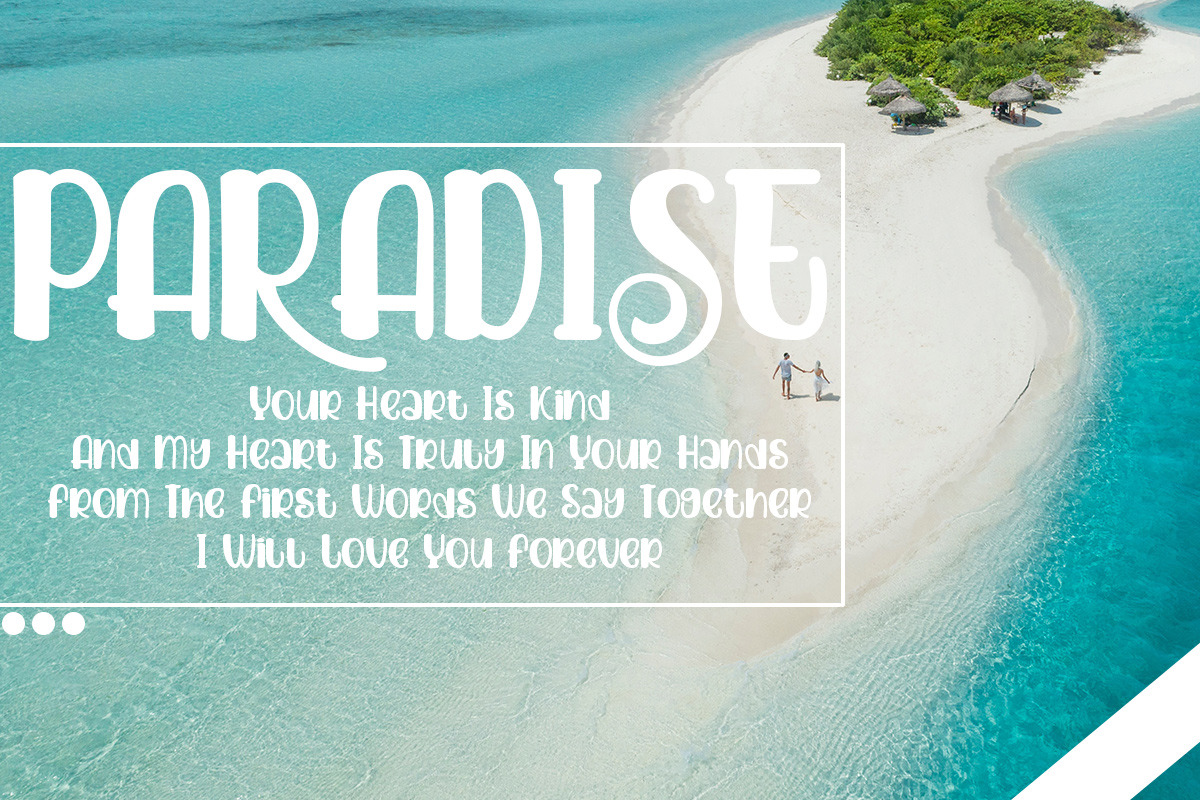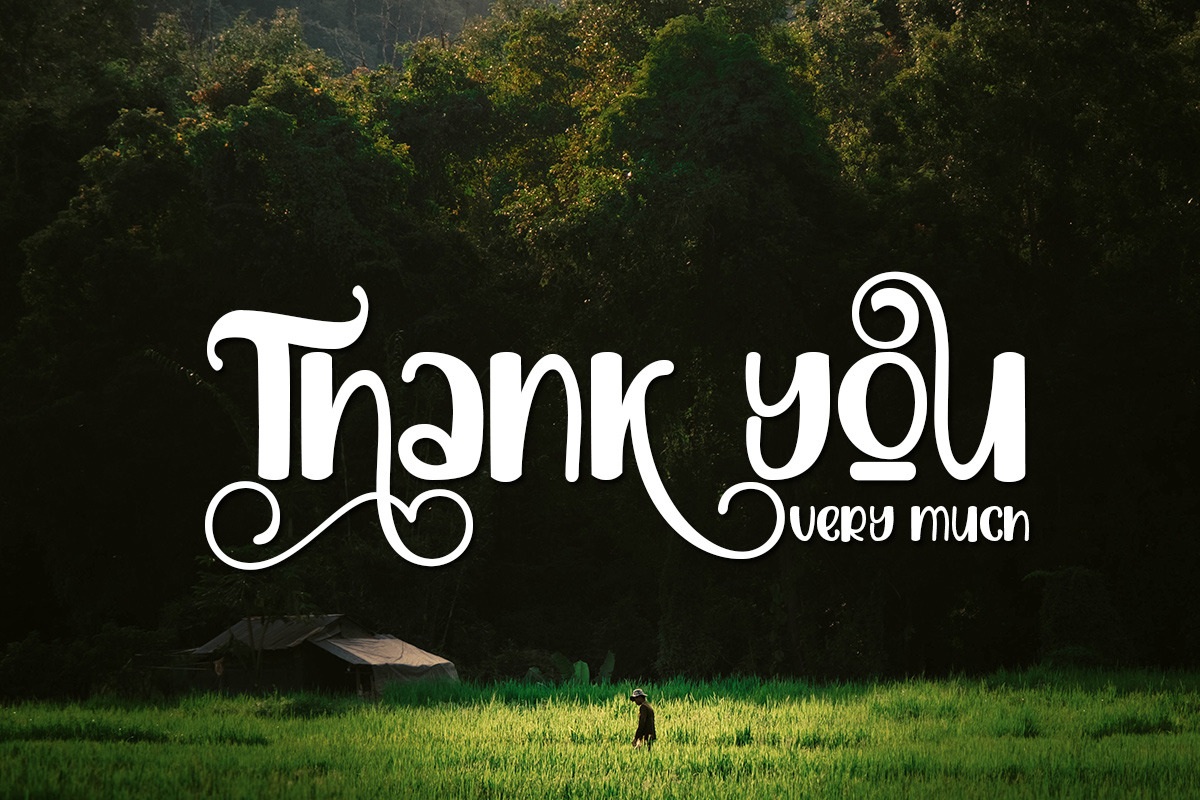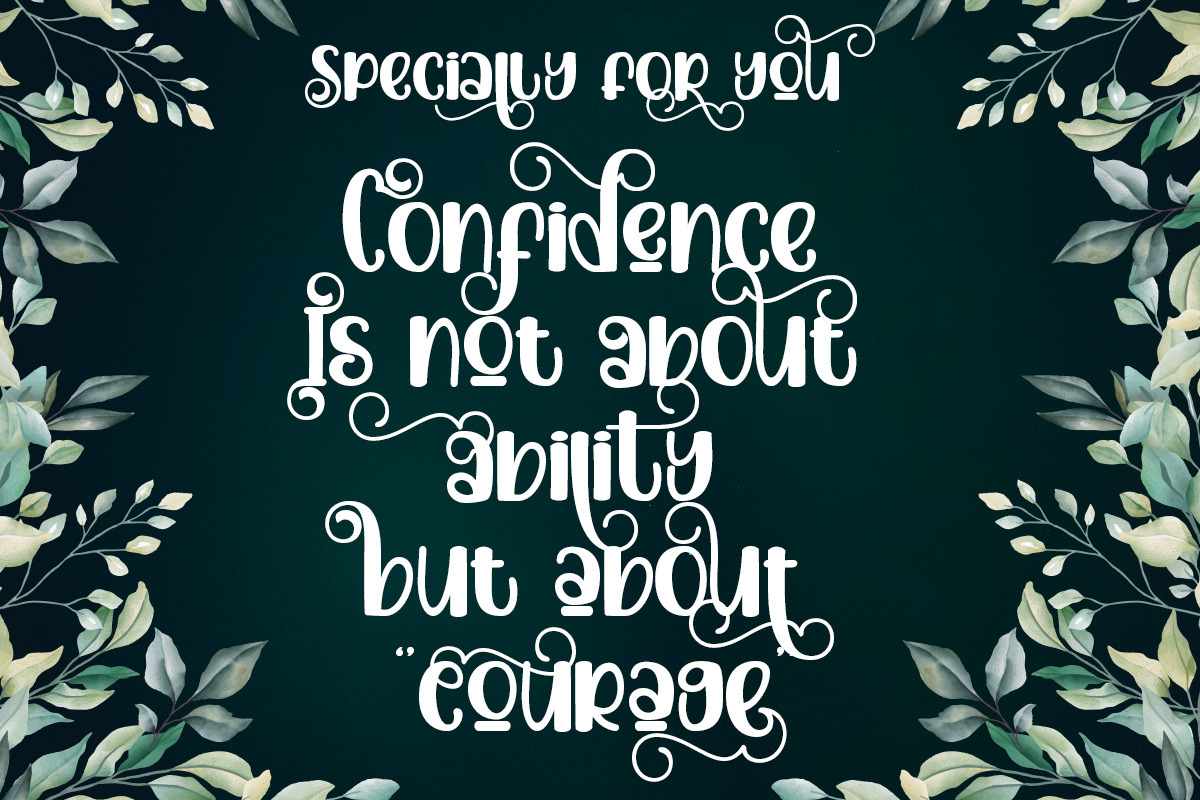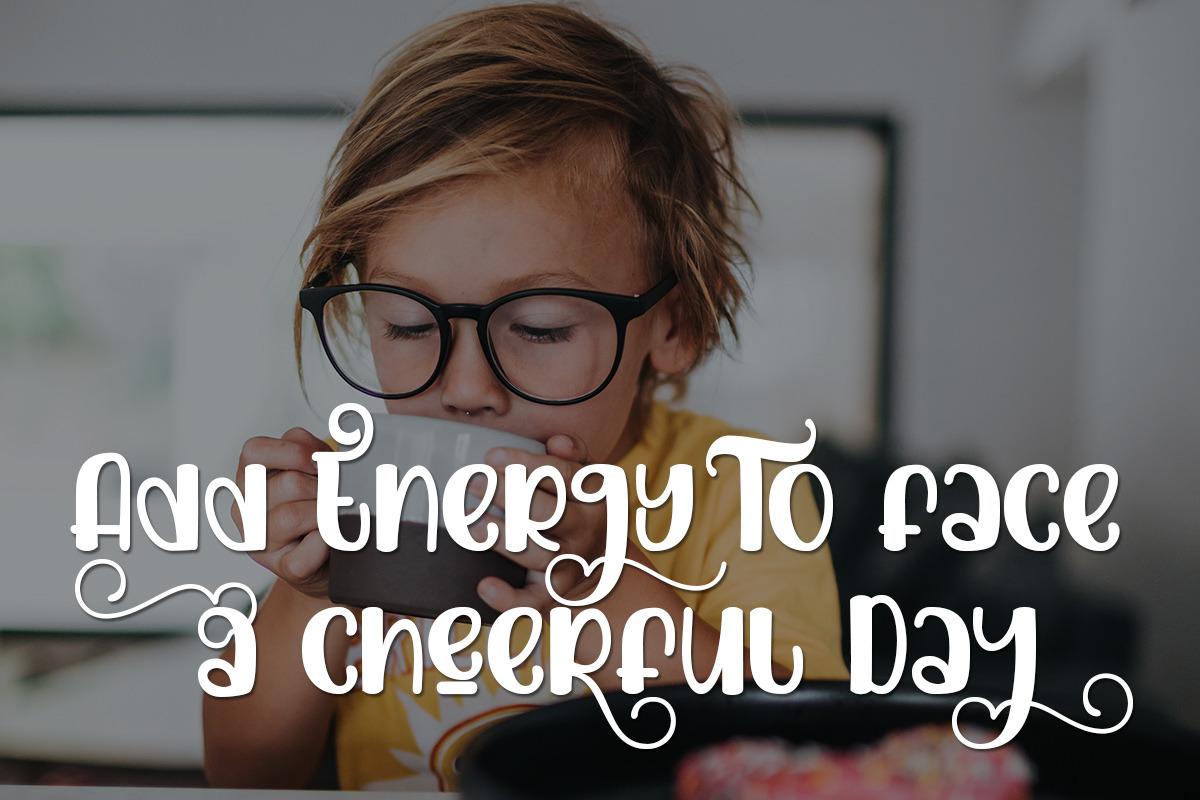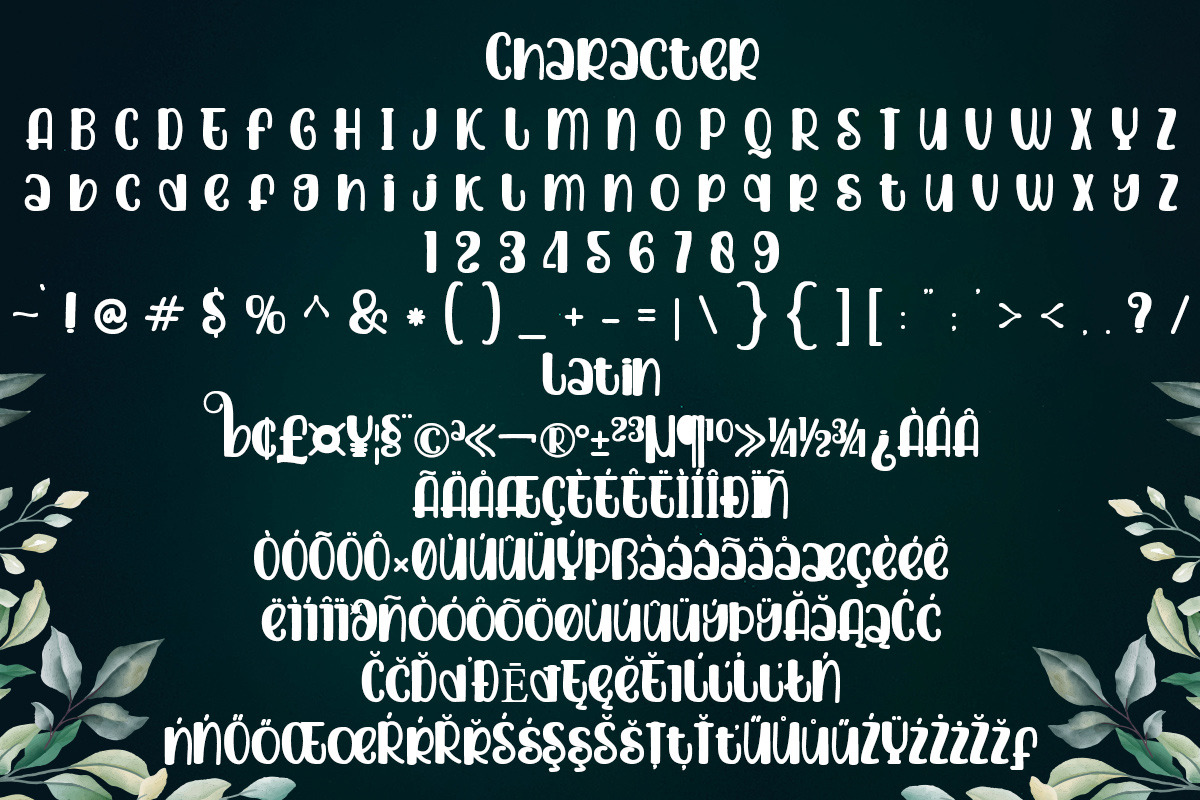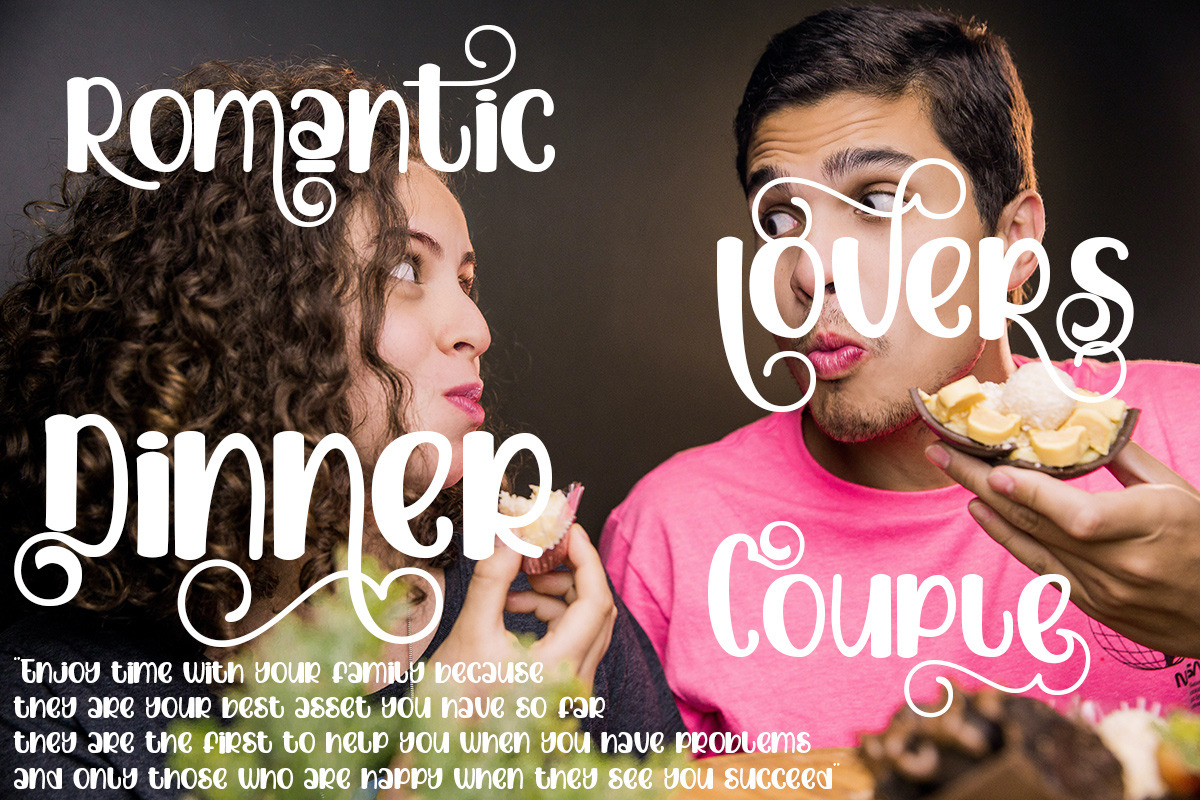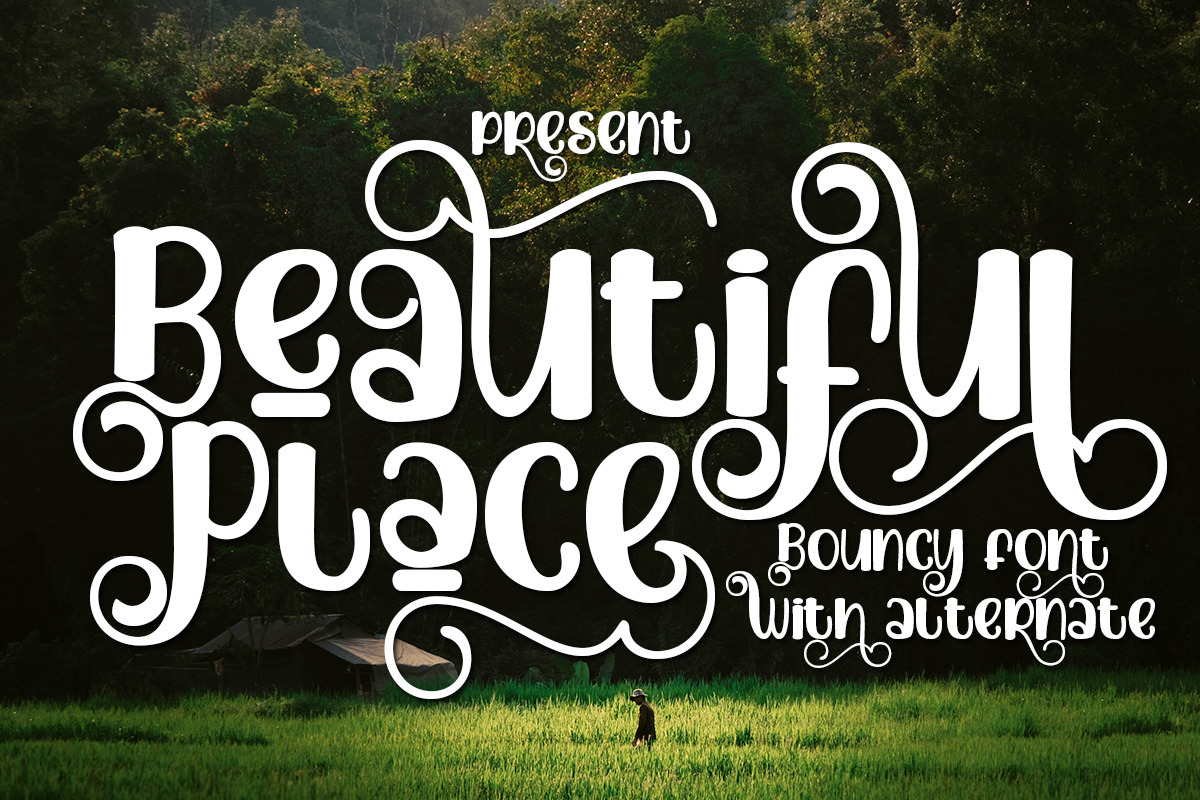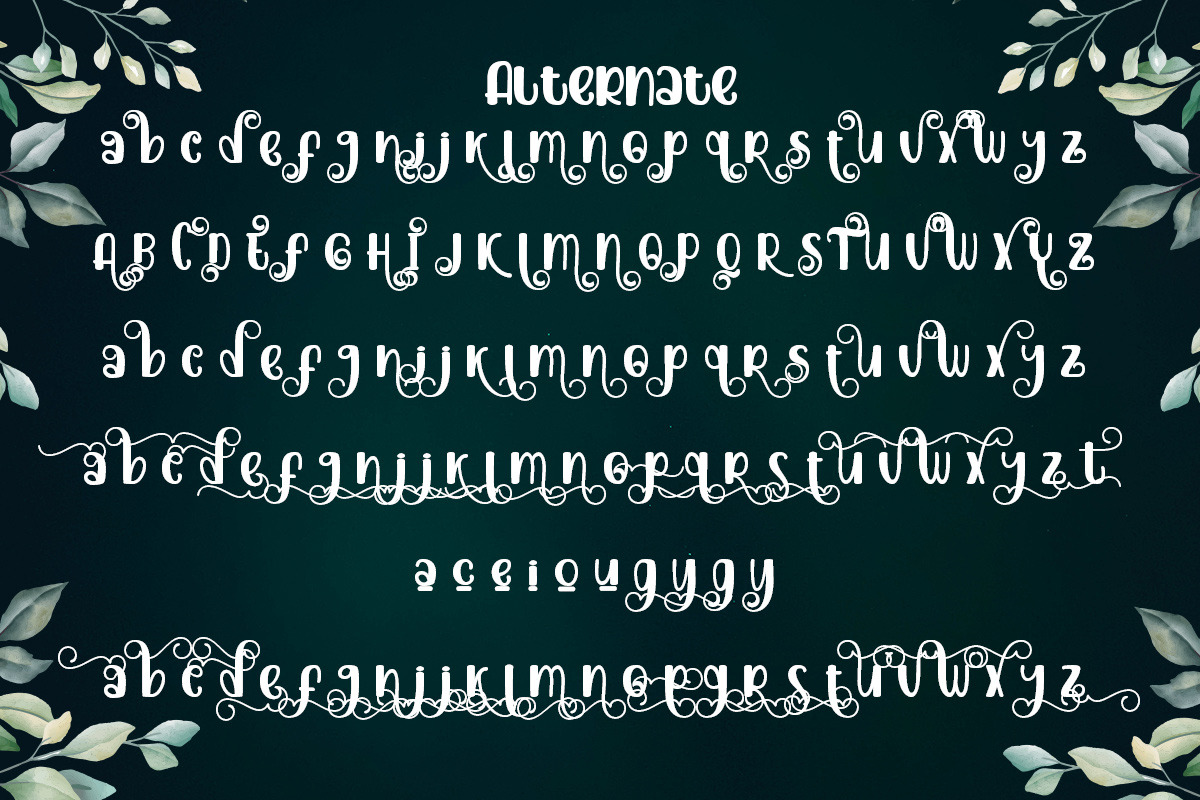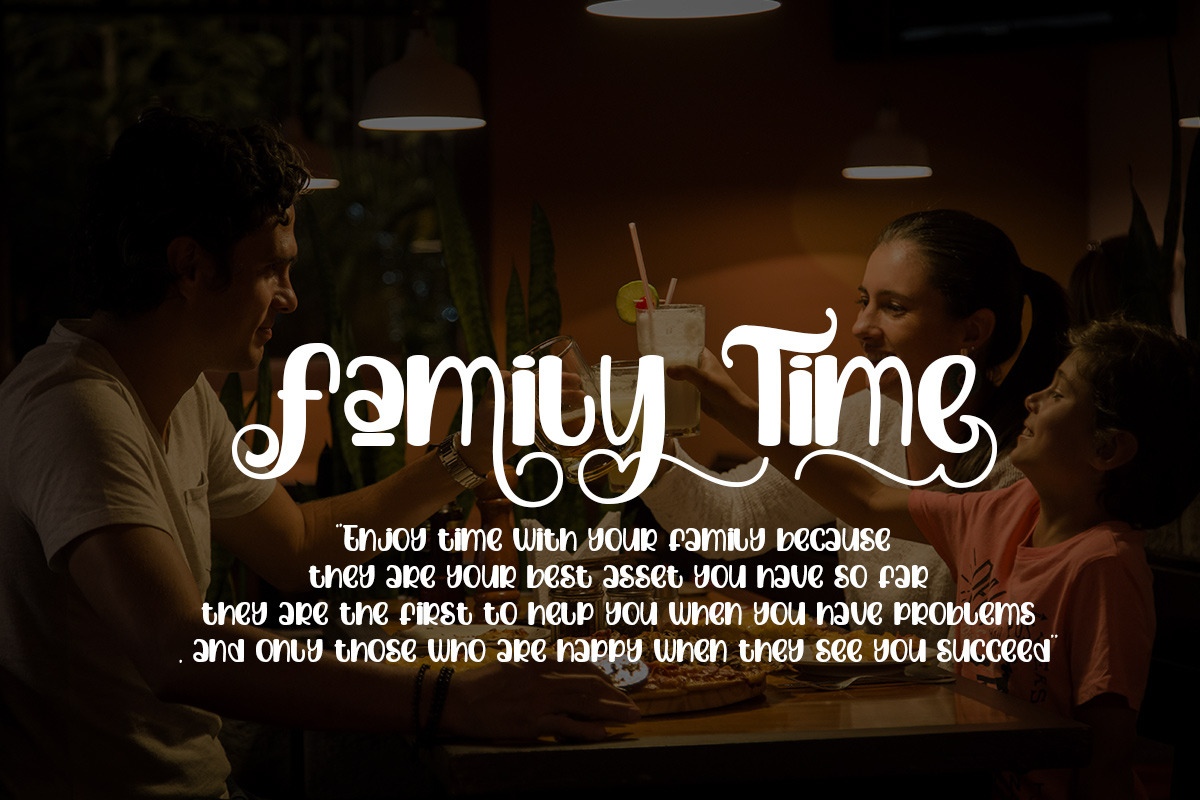
Beautiful place
Beautiful place this is a very cute and cute font design, make it your right choice, and see how it will make your design look more cheerful and funny This font is also equipped with several alternates that you can combine into your design
Beautiful place